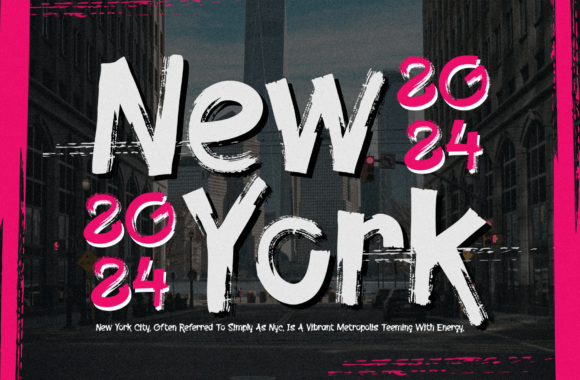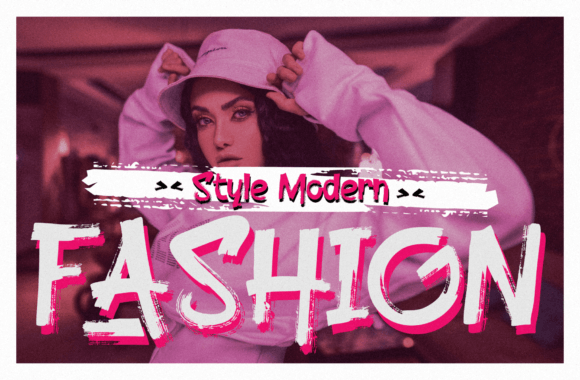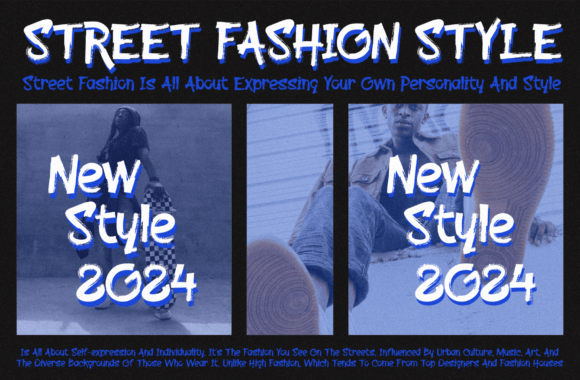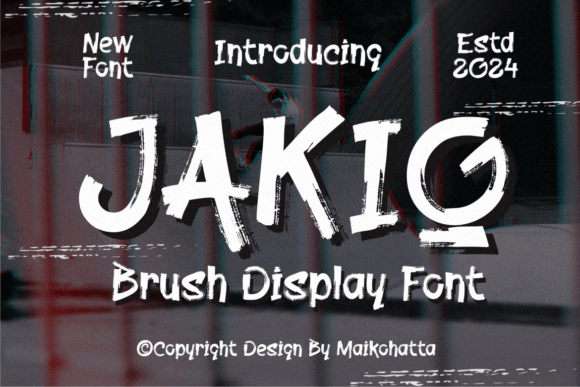
Introduction to Jakio Font
Introducing our new product **Jakio** – Brush Display This font features a combination of boldness and readability, merging the expressive brush handwriting style with contemporary design elements.
It creates a fresh, dynamic look that aligns seamlessly with modern design aesthetics and is frequently employed in logo design, marketing materials, signage, and various projects requiring a contemporary and expressive touch Its design excellence makes it a popular choice for conveying messages with a dynamic and engaging style.
Jakio Font offers exceptional quality and versatility, making it a valuable addition to your design toolkit. Whether you’re creating for personal projects or commercial use, Jakio Font delivers professional results.